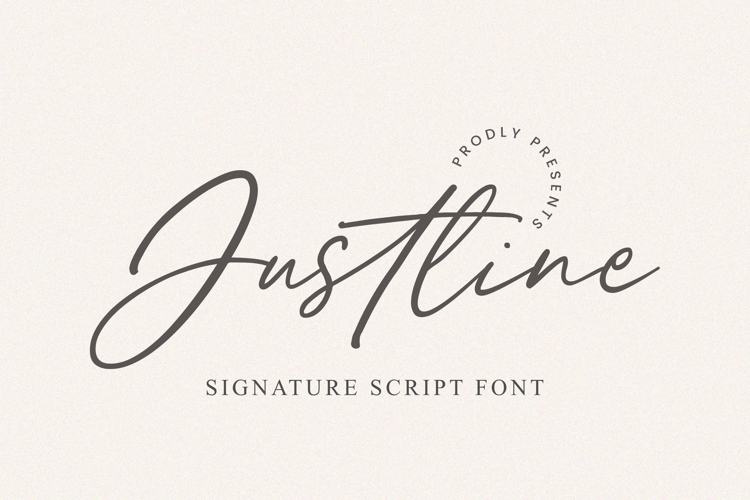
Justline Font
About Justline Font
Justline Script Font is a modern and classy signature font that comes with beautiful ligatures and lovely alternates. It has a beautiful stroke, and it will suit various wedding invitations, fashion cards, and more.